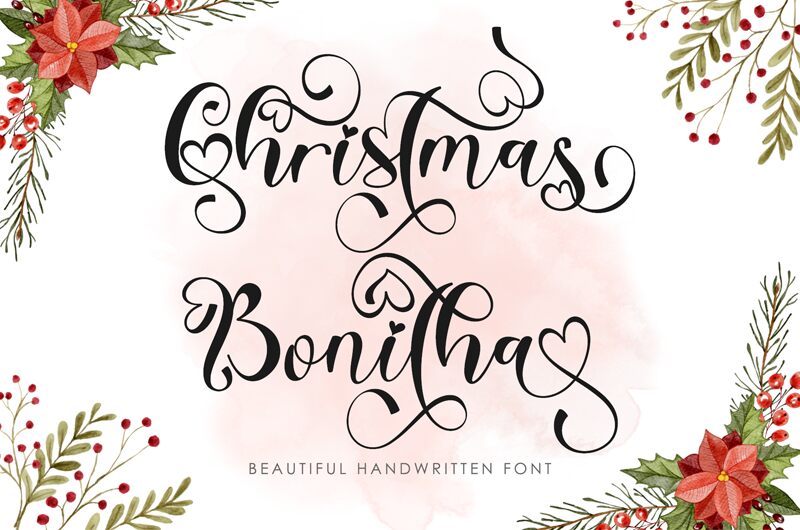
Christmas Bonitha font family by Yoga Letter is a festive and free typeface complete with two distinct font styles. Designed with the holidays in mind, this font adds a touch of whimsy and elegance to any project. Its ornate and decorative character make it a perfect choice for festive projects, combining both expression and grace into every character. Each letter is crafted to capture the romantic essence of the holiday season.
This font will be a very nice complement for designing Christmas cards, decorations, packaging, advertising, and posters. Use it in event invitations, banners, marketing materials, gift wrapping, or ornaments. It can also be applied in branding, website design, stickers, or any other form of typography inspired art.